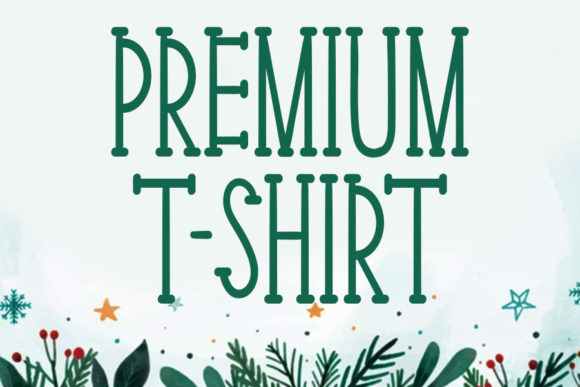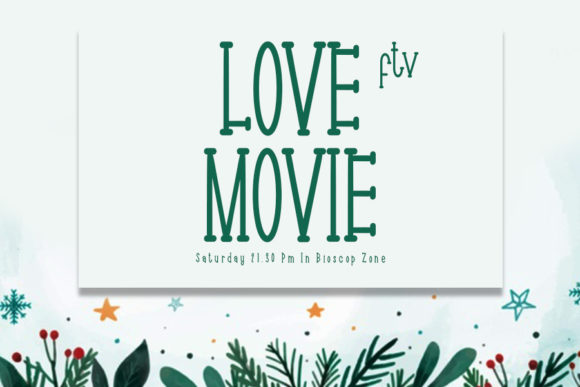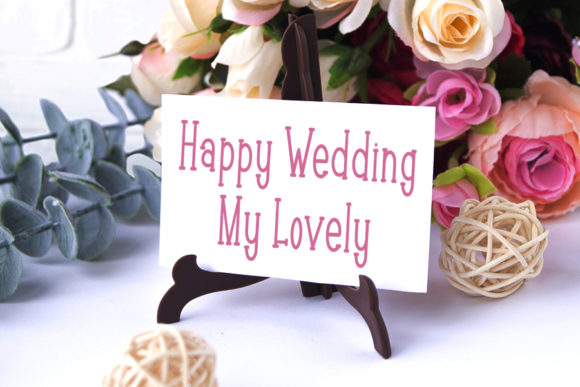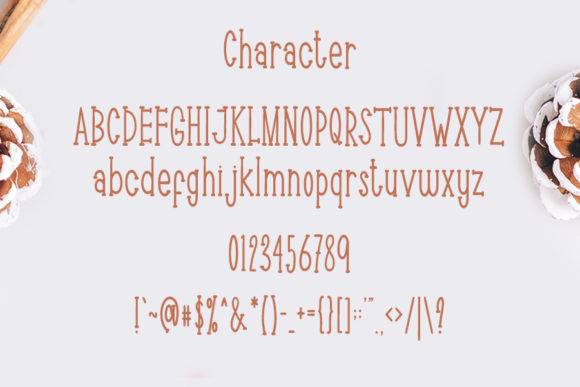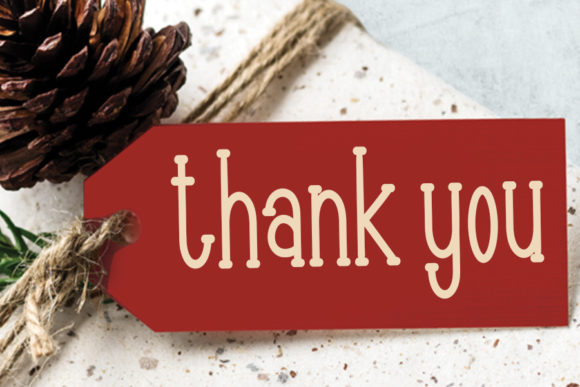
Introduction to Morning Winter Font
Morning Winter is a simple and trendy serif font.
This original look will appeal to a wide range of crafty ideas, from letterheads and titles, to stationery .
Key Features of Morning Winter Font